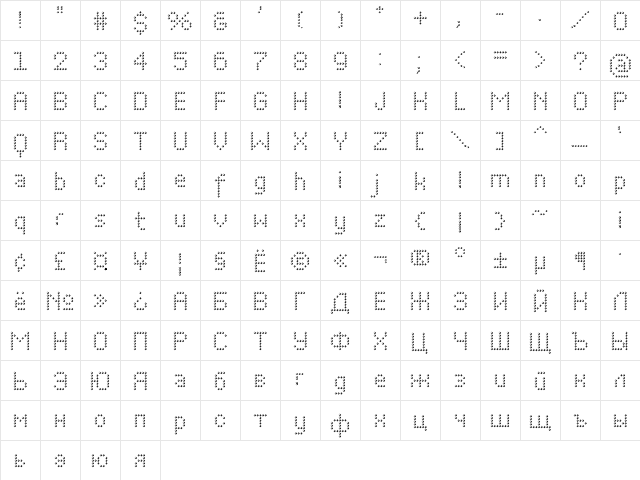
PerfoCube Normal
Design Context for PerfoCube Typeface
PerfoCube is a composed and adaptable typeface that performs quietly and consistently across a wide range of design contexts.